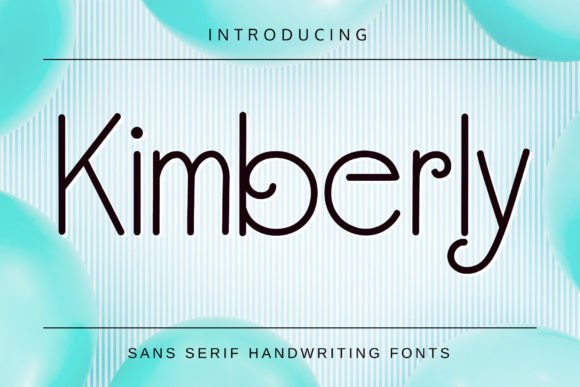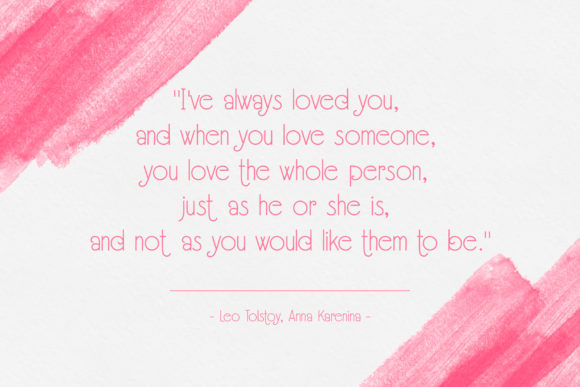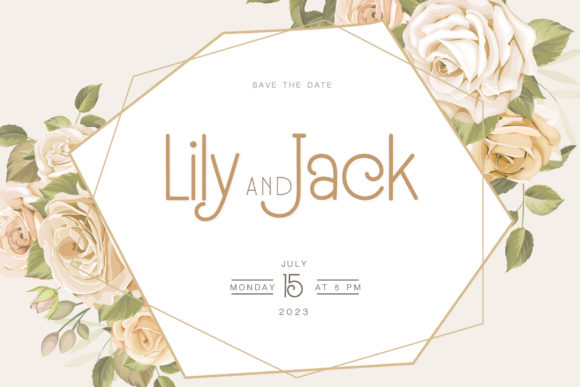
Discover the Perfect Blend of Elegance and Simplicity with the Kimberly Font
As a creative, there’s nothing quite like the rush of excitement when you stumble upon the perfect font to bring your project to life. Whether it’s a bold, eye-catching display or a delicate, understated script, the right font can elevate your work from ordinary to extraordinary. For designers seeking a versatile and stylish solution, the Kimberly Font is sure to become a trusted companion in your creative journey.
With its slender lines and refined aesthetic, the Kimberly Font is ideal for a wide range of applications, from blog posts and logos to invitations and photo albums. Its adaptability makes it a valuable asset for designers, allowing them to add a touch of sophistication and elegance to any project. Whether you’re working on a personal or professional project, the Kimberly Font is a reliable choice that’s sure to deliver impressive results.
Kimberly Font Key Features
- Font Family: Kimberly Font is a sans-serif font family.
- Unique Characteristics: Kimberly Font is designed to be highly legible, with clean lines and a modern aesthetic. It is ideal for use in corporate branding, signage, and digital applications.
Kimberly Font Review
As a designer, I was excited to try out the Kimberly font. Here’s my honest review:
- Unique and elegant design: The Kimberly font has a beautiful, hand-drawn feel to it that sets it apart from other fonts.
- Perfect for feminine brands: With its flowing curves and delicate lines, Kimberly is ideal for fashion, beauty, or lifestyle brands that want to convey a sense of sophistication and elegance.
- High-quality typography: The font is well-crafted and easy to read, making it perfect for body text as well as headlines.
- Limited versatility: While Kimberly is great for feminine brands, it may not be the best choice for more masculine or tech-oriented brands.
- No bold or italic versions: While the font is available in regular and light weights, there are no bold or italic versions available, which may limit its use in certain situations.
I think the Kimberly font is a great choice for designers who want to add a touch of elegance and sophistication to their projects. While it may have some limitations, its unique design and high-quality typography make it a valuable addition to any font collection.
Tips for Getting the Most Out of Kimberly Font
Experiment with different font sizes and styles to find the perfect balance for your design. Use Kimberly Font in combination with other fonts to add visual interest. Avoid overusing the font in a single design to maintain readability.
Kimberly Font is ideal for use in graphic design, branding, and digital marketing materials. It’s particularly well-suited for use in logos, business cards, and other small-scale designs where a clean and modern look is desired.
Helvetica
Helvetica is a classic sans-serif font that is widely used in graphic design. It is clean, simple, and highly legible. Use Helvetica when you need a font that conveys a sense of professionalism and sophistication. It is similar to Kimberly Font in its sans-serif style, but Helvetica has a more modern and sleek feel.
Arial
Arial is another popular sans-serif font that is often used in digital design. It is highly readable and works well in a variety of contexts. Use Arial when you need a font that is easy to read on screens. Unlike Kimberly Font, Arial has a more rounded feel and is often used in informal settings.
Calibri
Calibri is a modern sans-serif font that is often used in corporate design. It is highly legible and has a clean, minimalist feel. Use Calibri when you need a font that conveys a sense of professionalism and modernity. Like Kimberly Font, Calibri has a clean and simple style, but it is more modern and sleek.